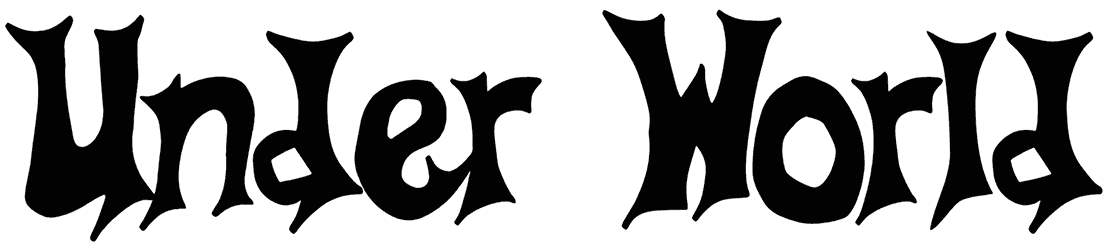
Under World Font
Under World font is an exciting witch font that can be categorized as a cartoon font, as its playful style appears engaging and attractive.
You may use the Under World font in various cases, such as posters, cartoons, animations, and comic book covers. This fancy font’s letters have sharp edges with a bending form that makes them memorable to the viewers. Download it now to make a lasting impact on your audience.